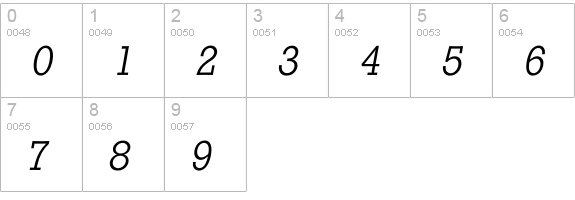
Istafford Light is a refined, elegant variant in the Istafford typeface family \xE2\x80\x94 well suited to elegant body text, refined sub-headings, and luxury branding.
Introducing Istafford Light font, a beautiful and versatile typeface that embodies elegance and modernity. With its clean lines and delicate curves, this font is perfect for adding a touch of sophistication to any design project. Istafford Light font is not only visually stunning, but it is also incredibly easy to read. Its clarity and legibility make it suitable for a wide range of applications, including branding, advertising, packaging, and more. Whether you're designing a logo, creating a website, or crafting a poster, this font will effortlessly elevate your design to the next level. One of the best things about Istafford Light font is that it is free! Yes, you read that right. This stunning font is freely available to download at FontsMarket.com. Now, you can enhance your designs without breaking the bank. Simply head over to FontsMarket.com and grab your copy of Istafford Light font today. The versatility of Istafford Light font is unmatched. It comes in a variety of weights and styles, allowing you to experiment and create unique combinations that suit your specific needs. From thin and delicate to bold and impactful, this font has it all. Not only does Istafford Light font deliver in terms of aesthetics, but it also boasts excellent technical qualities. It is fully compatible with various design software and supports multiple languages, making it a go-to choice for designers worldwide. In conclusion, if you're in search of a beautiful, versatile, and free font, look no further than Istafford Light font. With its striking appearance and wide range of applications, this font is a must-have for any designer. Experience the elegance and modernity of Istafford Light font by downloading it for free at FontsMarket.com today.